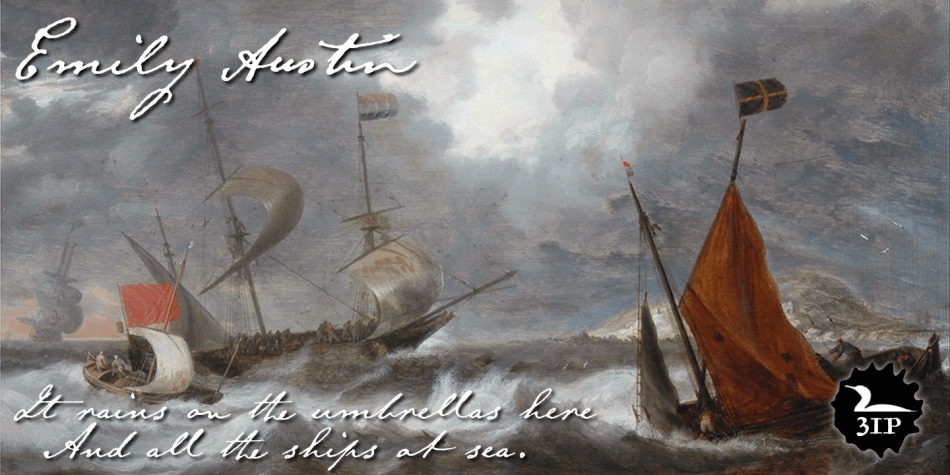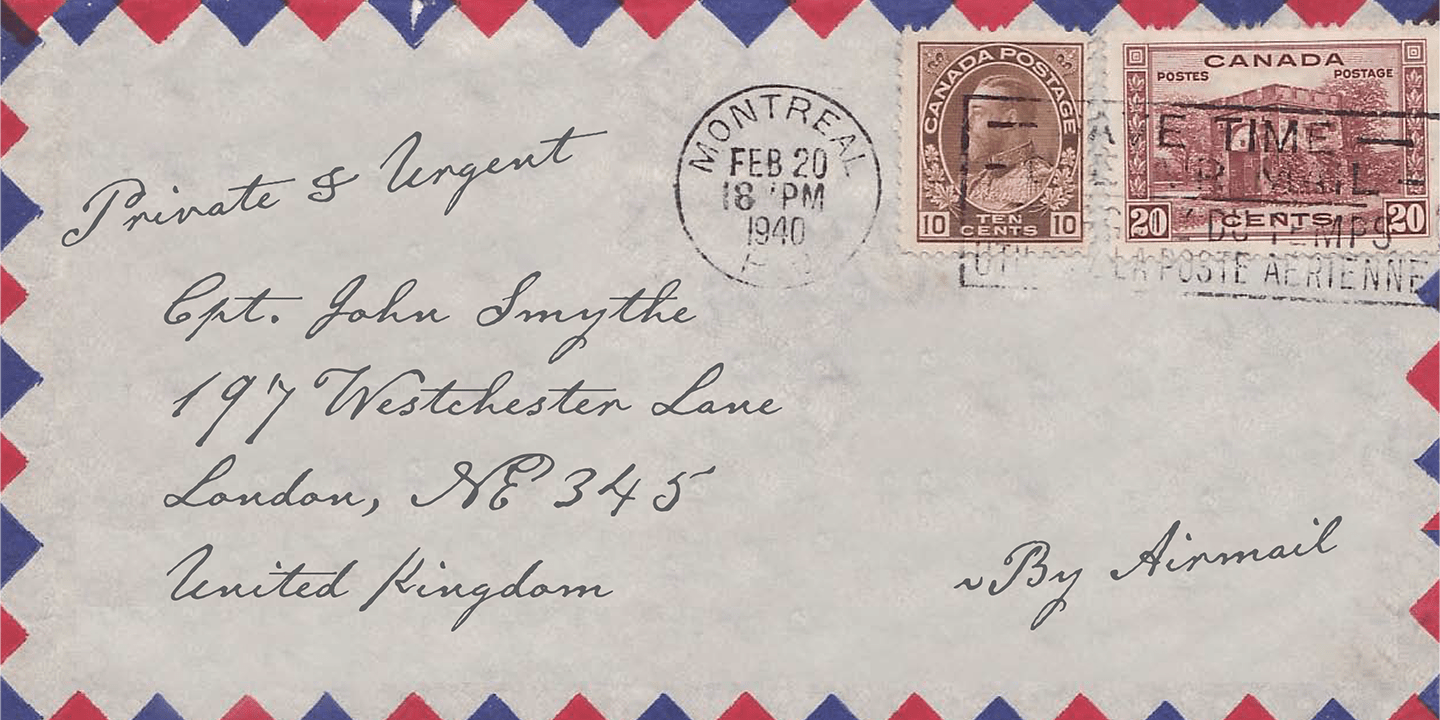
Emily Austin
While traveling about seeking treatment for a sickly daughter, she wrote many letters home -- letters that show a distinctively compact, legible hand.
The challenge for me in designing the face: resisting the temptation to read and re-read her bossy directives and urgent appeals, all packed tightly together on a page.
Emily Austin has a complete character set, and then some.